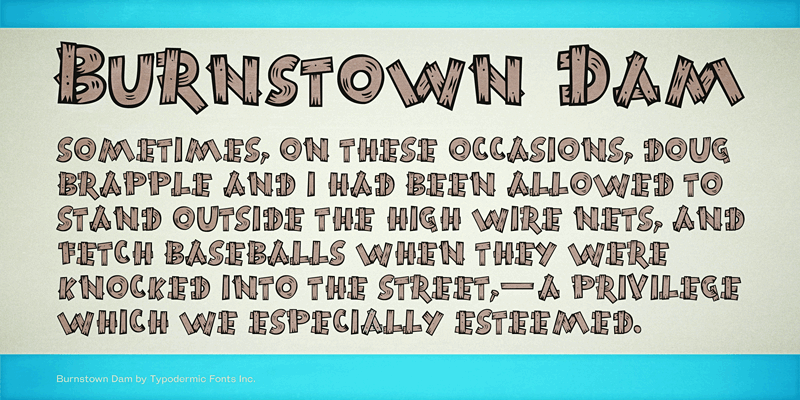
Font name: | Burnstown Dam |
Burnstown Dam is a small caps, plank font from out in the sticks. Perfect for moonshine labels, hillbilly weddings or corn roasts. This font includes a license that allows free commercial use: sometimes referred to as a desktop license. This allows you to install the font on a computer and use it to create posters, web graphics, game graphics, t-shirts, videos, signs, logos and more. Read the license agreement for details. If you'd like to embed this font in an app, ebook, on the web or anything that's not covered by the desktop license agreement, visit the link below. You'll find distributors who offer different types of licenses or you can contact me for help. http://typodermicfonts.com/burnstown-dam/ |